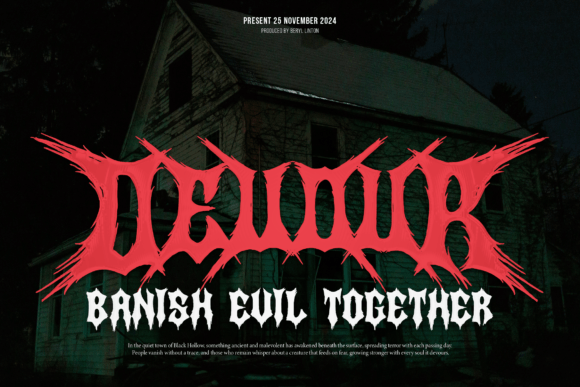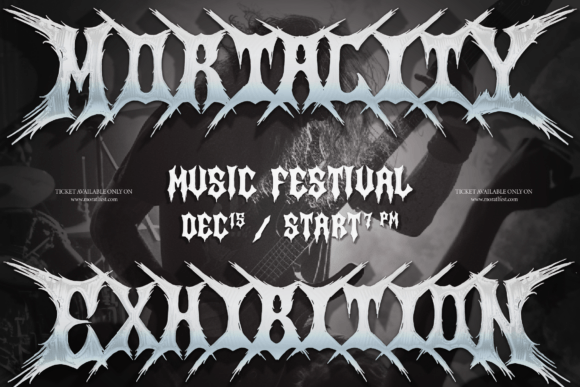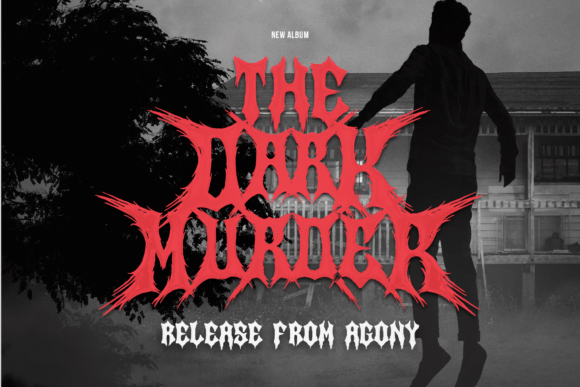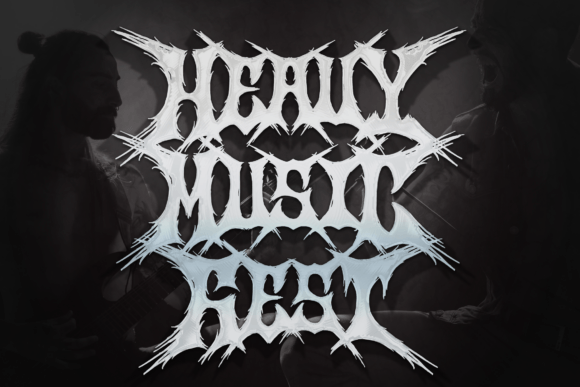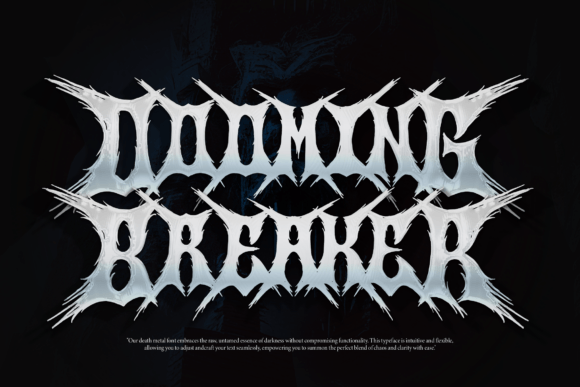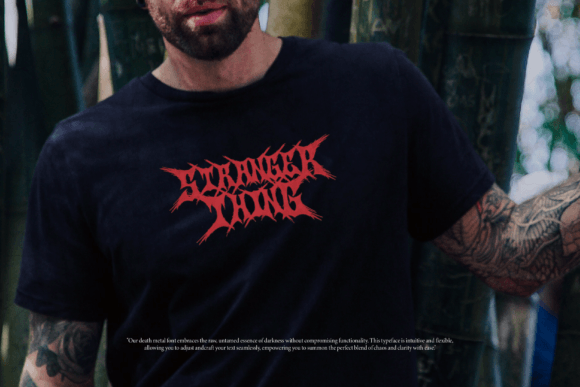
Introduction to Searing Maw Font
There’s something about late-night creative sessions that sparks the perfect idea. The dimly lit room, the hum of the computer, and the sound of a heavy metal track playing in the background. It’s moments like these that inspire us to push the boundaries of our designs. For designers working on a project that demands a bold and intense look, the right font can make all the difference.
That’s where Searing Maw Font comes in – a high-quality design resource that’s sure to elevate any creative project. This free download boasts a transparent background, making it perfect for backgrounds, overlays, or even text effects. With its aggressive and dark aesthetic, Searing Maw Font is sure to add an edge to your designs, much like the intense sound of the band that shares its name.
Whether you’re working on a dark fantasy game, a heavy metal album cover, or a horror-themed website, Searing Maw Font is the perfect addition to your design arsenal.
Key Features of Searing Maw Font
- Unique, hand-drawn design with a fantasy theme, perfect for creative projects and games.
- High-quality font with a transparent background, ideal for use on various design elements and backgrounds.
- Includes a range of characters, including uppercase and lowercase letters, numbers, and special characters.
- Perfect for use in fantasy-themed creative projects, such as book covers, game titles, and advertising materials.
Honest Review: Searing Maw Font
I recently had the chance to work with the Searing Maw Font, and I must say it’s a real treat for designers. This font is perfect for adding a touch of elegance and sophistication to any creative project. The free download was a great bonus, and I appreciate the transparency of the design resource.
One of the standout features of the Searing Maw Font is its high-quality design. The font is crisp and clear, with a beautiful transparent background that makes it easy to use on any background image. I was impressed by how well the font worked with my design, and I found it to be a great addition to my project.
Here are some of the things that work well with the Searing Maw Font:
- ✨ Beautiful, high-quality design
- ✨ Perfect for adding elegance and sophistication to any project
- ✨ Easy to use with transparent background
- ⚠️ Limited font variations (only one style available)
- ⚠️ Not suitable for very small font sizes
Overall, I’m really impressed with the Searing Maw Font. It’s a great design resource that’s perfect for any creative project. While it may have a few limitations, the high-quality design and transparent background make it a great addition to any designer’s toolkit.
Tips for Getting the Most Out of Searing Maw Font
Use the Searing Maw Font to add a touch of elegance to your creative project. With its transparent background, you can easily layer it over other design elements. Experiment with different font sizes and colors to achieve the desired effect.
The Searing Maw Font is perfect for creating eye-catching titles, headings, and text overlays for your design project. Use it in your logo designs, social media graphics, or website headers to make a statement.